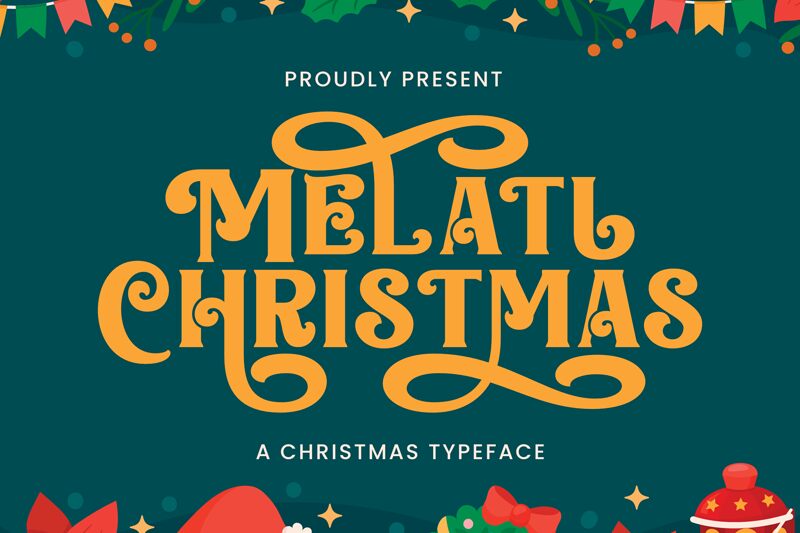
Melati Christmas font is a free holiday typography project designed by Ahweproject. The font has a decorative and ornamental design that effectively brings out the nostalgic atmosphere of the Christmas holiday. Each letter is unique, engaging, and charming, making the font ideal to add unexpected touches and visual interest to projects. Use it on all your holiday projects, during Christmas and any other wintertime holiday.
Melati Christmas can be beautifully used in card and gift design, packaging, advertising, branding and identity projects, book and magazine covers, patterned textiles, posters, movie titles, creative captions, and other print/digital projects. Anything that needs to be festive and celebratory would look much better with Melati Christmas.